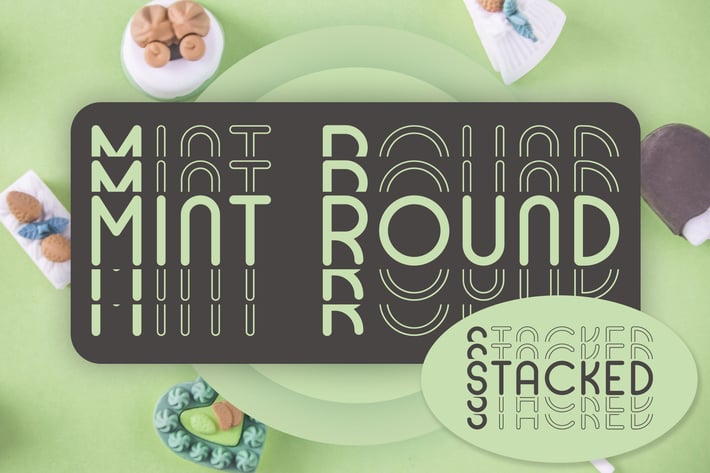
Mint Round - Stacked - Mirrored Font
Mint Round - Stacked - Mirrored Fun Font
Mint Round is a geometrical playful font with solid, outline variations will perfectly shows the positive vibes with the round corners and smoothness.